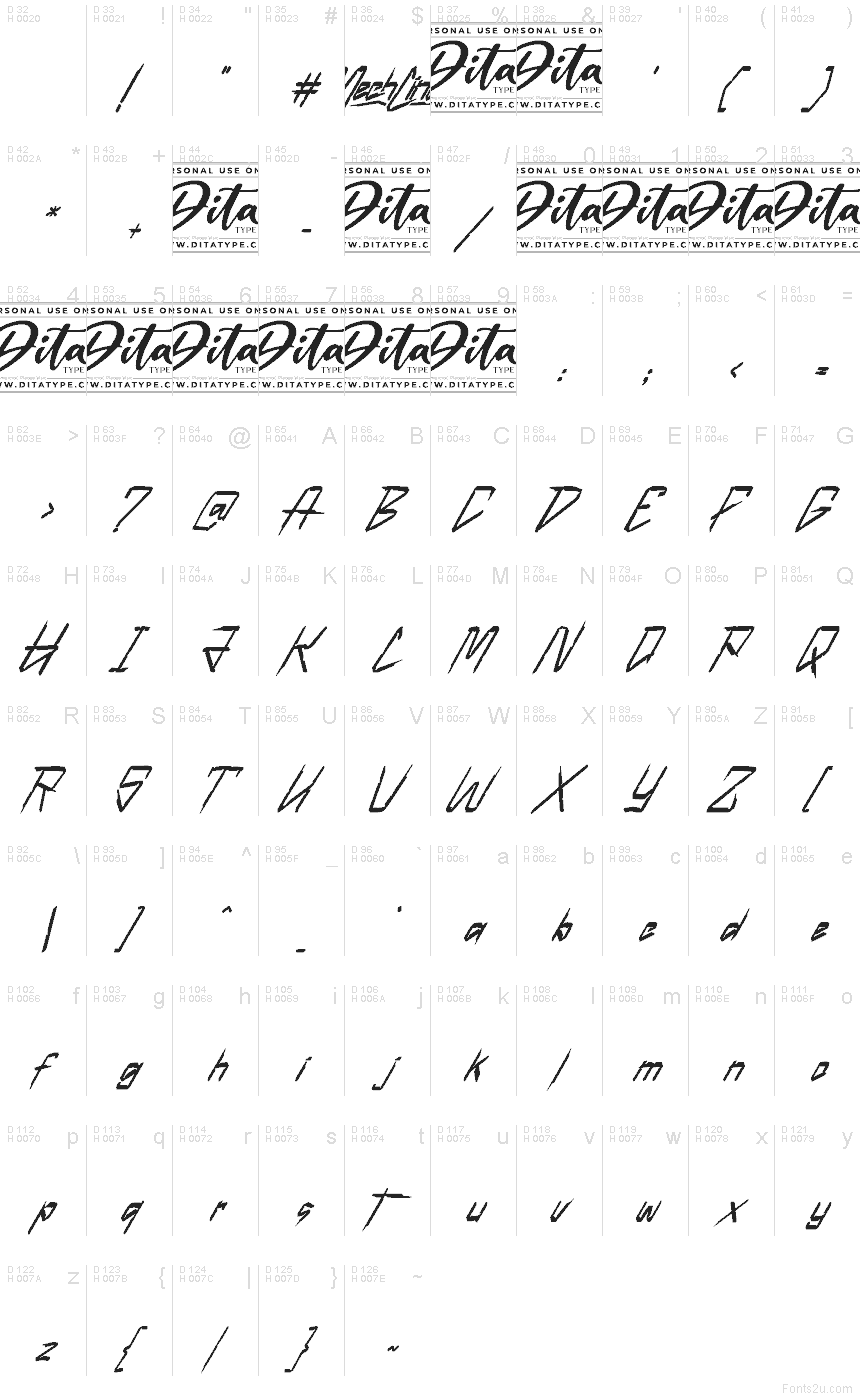
Mechline Personal Use
Mechline font, designed by Ditatype, is a condensed brush typeface known for its industrial and energetic touch. Its aggressive and angular strokes make up for a futuristic script-like writing approach. Even if all letters are connected to one another, the font maintains a high level of sharpness and modernity within its reads.